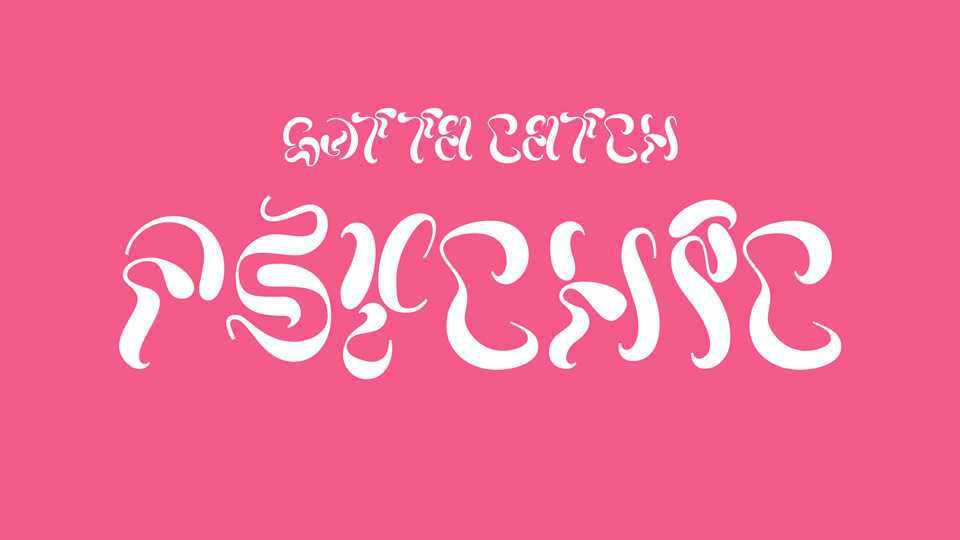
Download Gotta Catch Psychic font, an experimental hand lettered typeface designed during a type design initiation workshop given by Lucas Descroix in March 2021.
Designer: Martin Gouriou